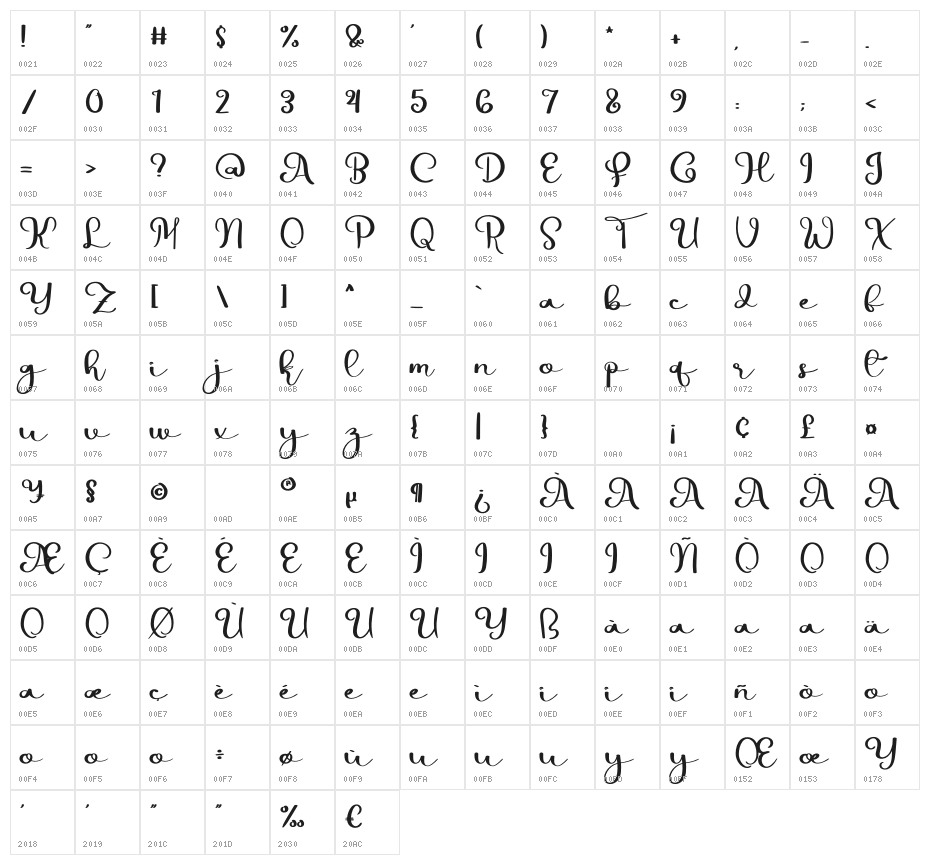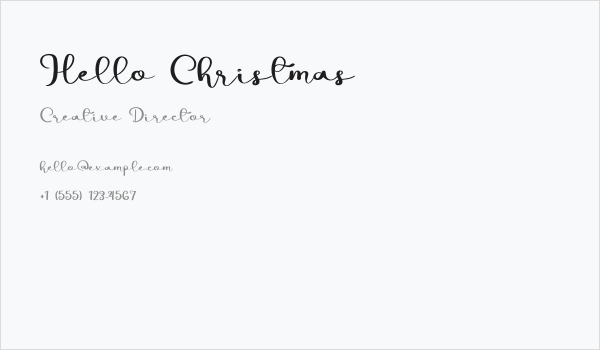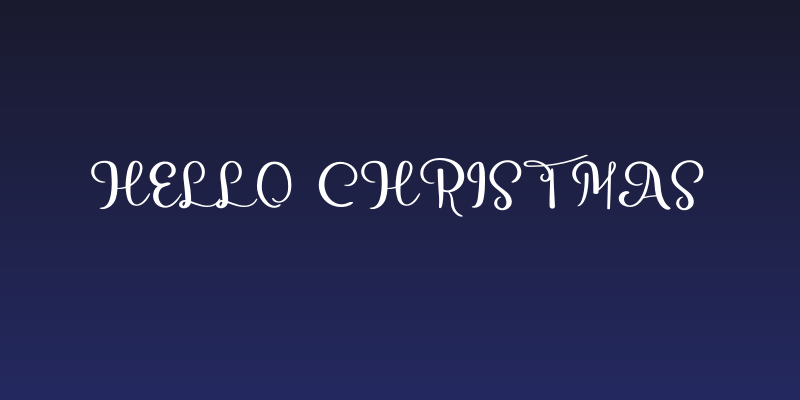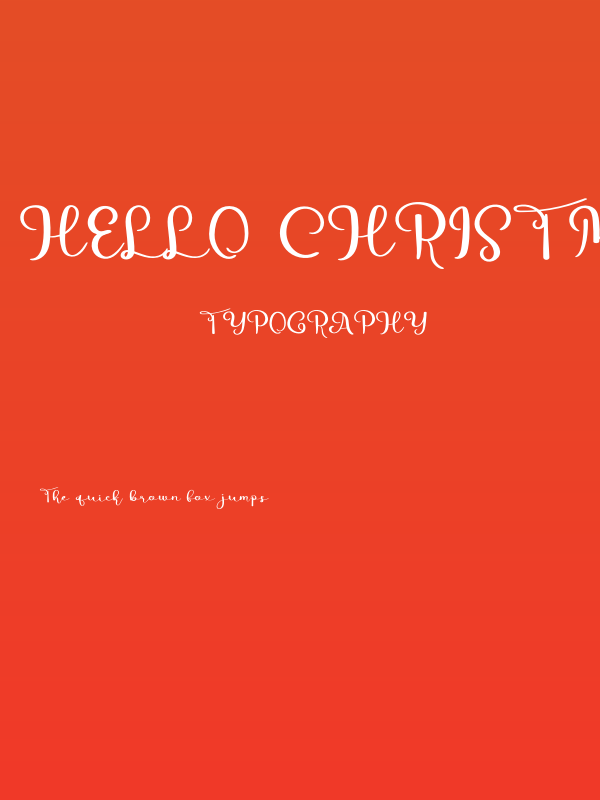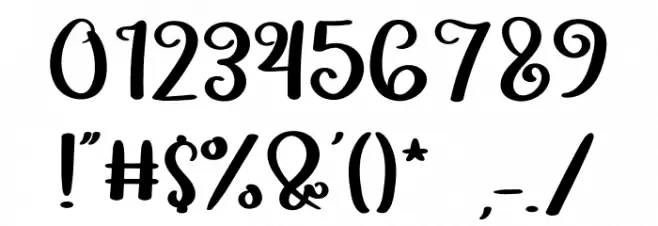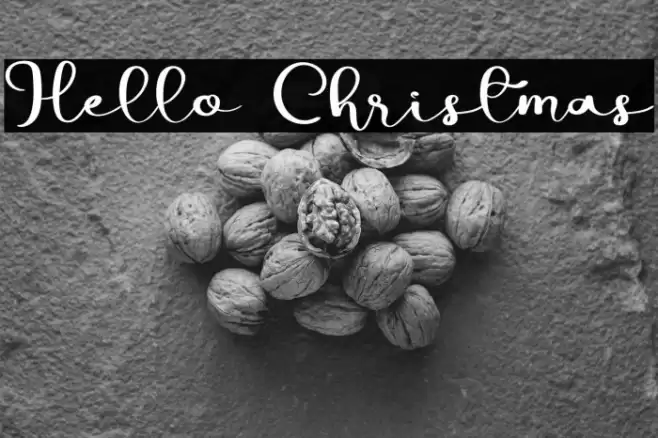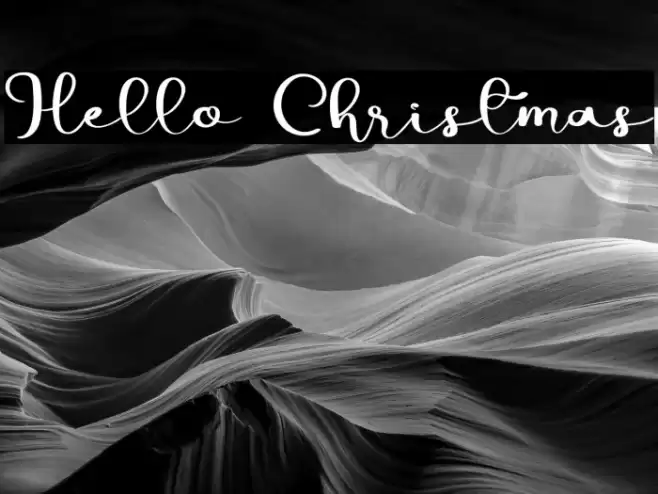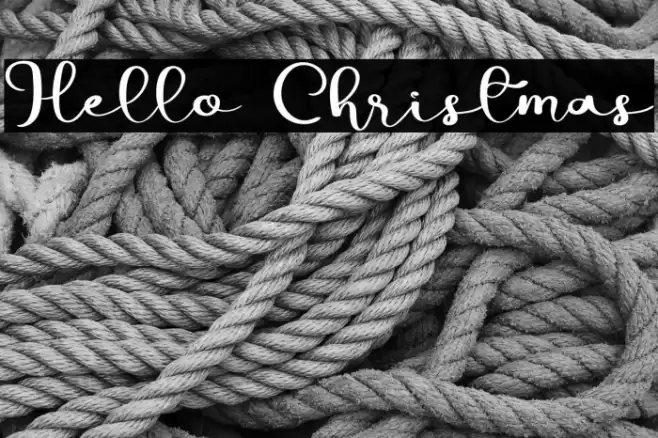
Hello Christmas Font
Hello Christmas Description
This font features a playful and festive script style, characterized by its flowing, cursive letters that evoke a sense of whimsy and celebration. The uppercase letters are bold and decorative, with elegant loops and swirls that add a touch of sophistication. The lowercase letters maintain a consistent flow, with smooth connections between characters, enhancing the script's fluidity. Numerals are bold and rounded, complementing the overall style. Special characters are creatively designed, maintaining the font's festive and decorative theme. This font is perfect for adding a joyful and lively touch to any project.
| Use Case | Logos, Headlines, Invitations |
| Proposed Projects | Ideal for holiday cards, festive invitations, seasonal branding, and decorative signage. |